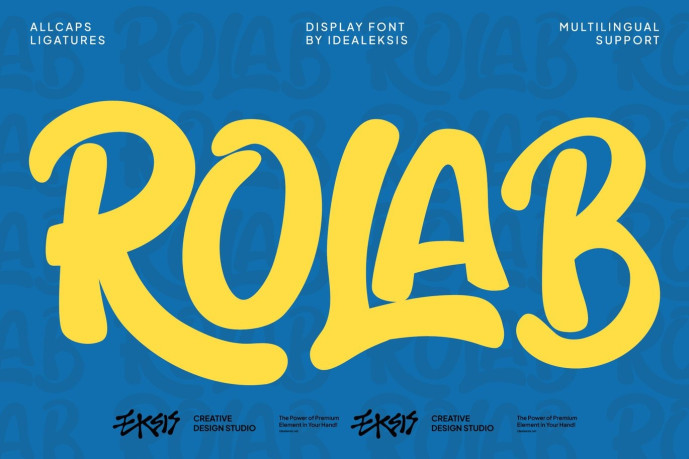
Rolab Font
Designer: Idealx
Rolab Font is a high-impact display typeface characterized by its thick, rounded strokes and organic, hand-drawn aesthetic. The letterforms exude a playful energy with soft endings and a consistent weight that ensures maximum legibility. Its fluid curves and interconnected ligatures create a rhythmic flow, making it ideal for branding, posters, and social media graphics where a bold, friendly, and modern urban feel is required. The design avoids sharp angles, favoring a soft, approachable look that commands attention with its strong visual presence and unique character forms.